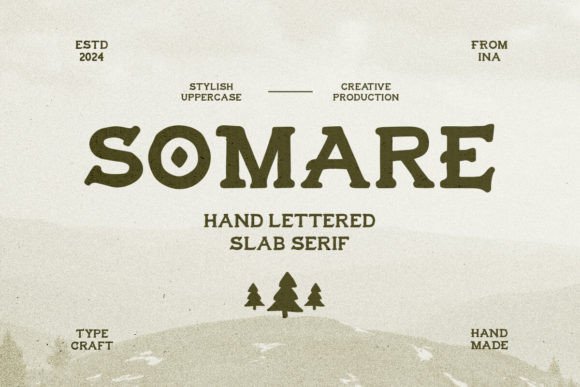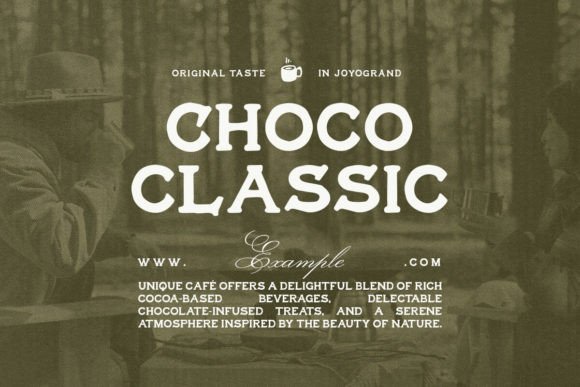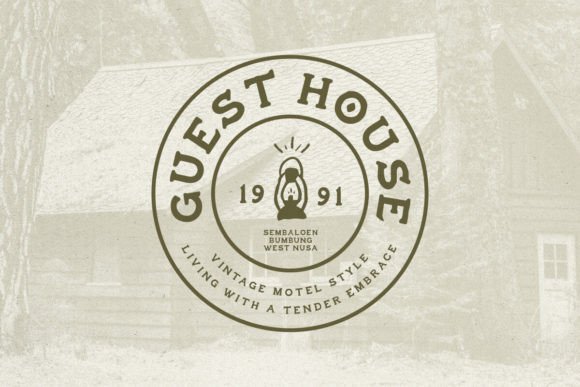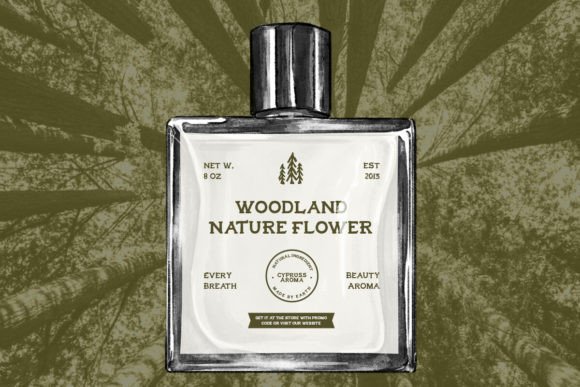
Somare Font: Vintage Slab Serif for Rustic Logo Design & Branding
About the Somare Font
Presenting Somare Font, a unique and stylish typeface that will make your work stand out. Somare is a hand lettered slab serif with rough and vintage looks. You can use this fonts for many purposes such as logotype, quotes or any projects that require adventure and outdoor vibes. With different uppercase and lowercase, you can choose what you want or combine them in a word. This fonts also support multi language!
Somare Font Usage Examples
Somare Font Example